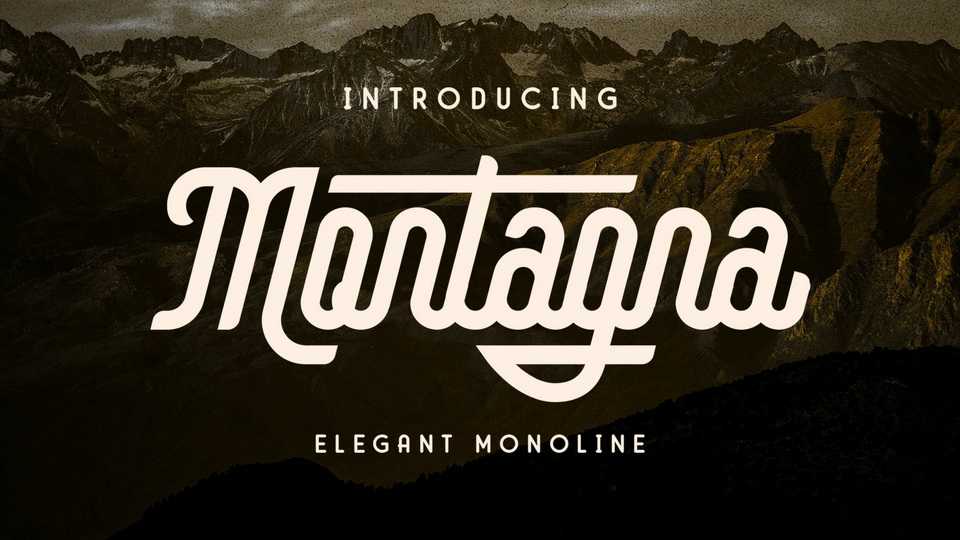
Download Montagna font, a very tidy monoline typeface with short stems. Montagna is inspired by a retro poster from the 80s, old-school neon-sign, and modern-vintage design.